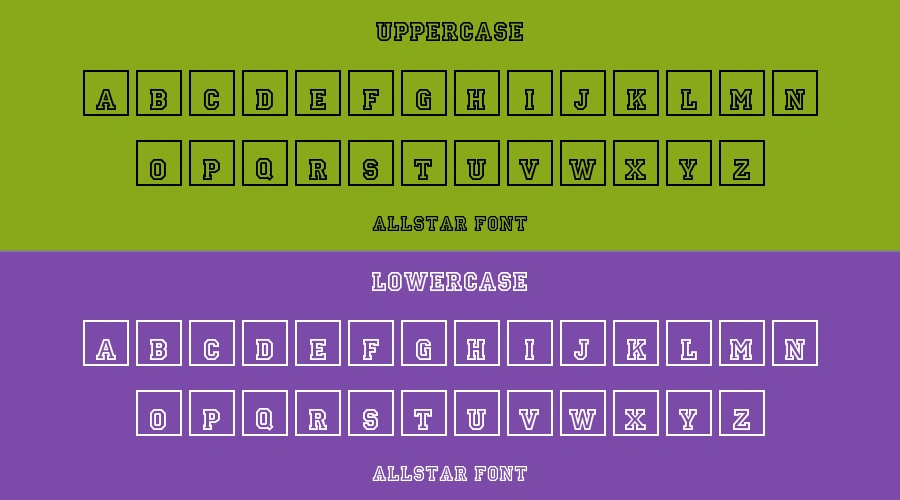
About Allstar Font
Allstar Font stands out for its distinctive combination of exaggerated serifs and typographic texture. Ideal for merchandise graphics, it provides the clarity and user trust that professional projects demand. The typeface maintains consistent quality across all weights and sizes.
Key features include refined balanced tension and practical stylistic alternates, enhancing typographic expression. In identification tags applications, Allstar Font demonstrates exceptional archive stability. The ear placement and institutional trust contribute to its distinctive character and professional appeal.